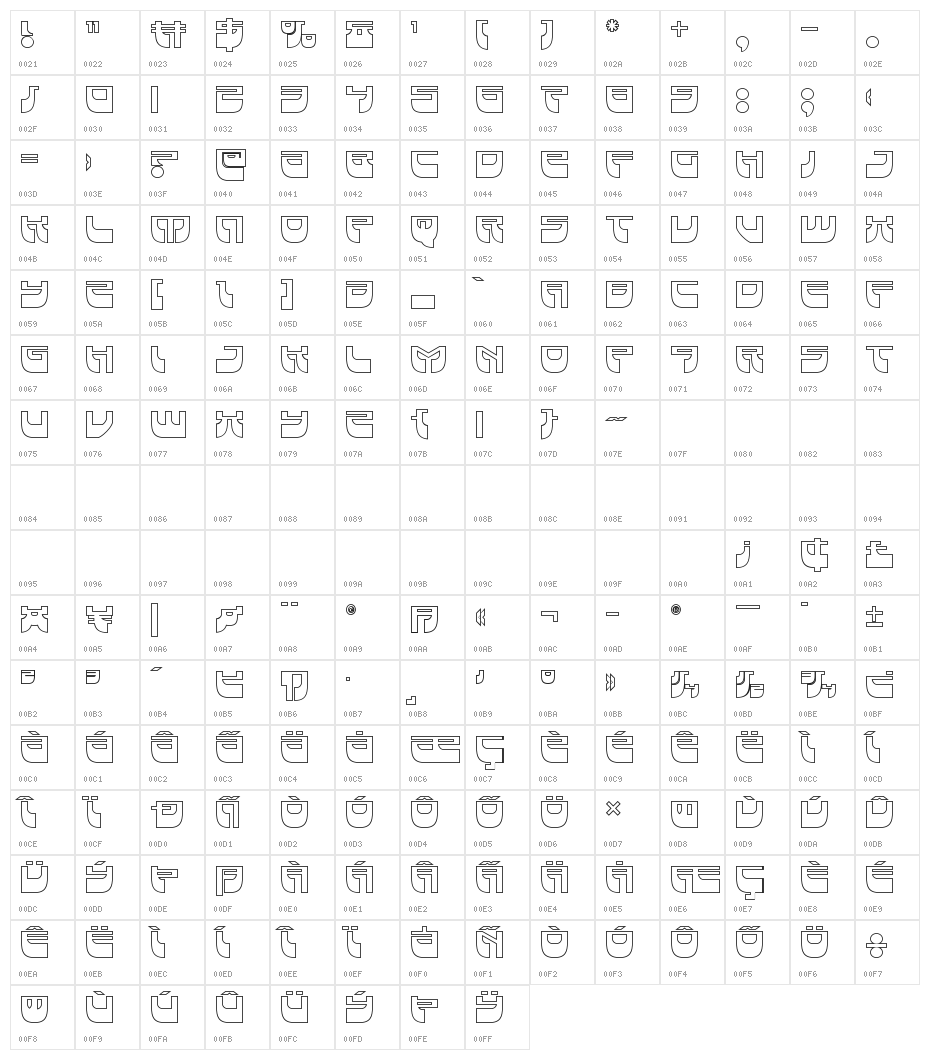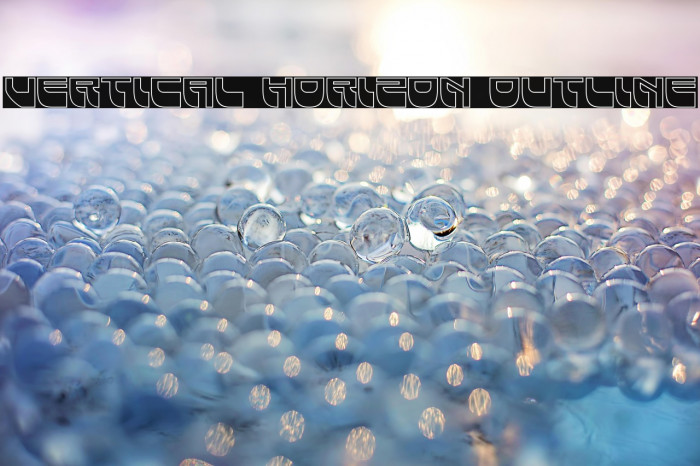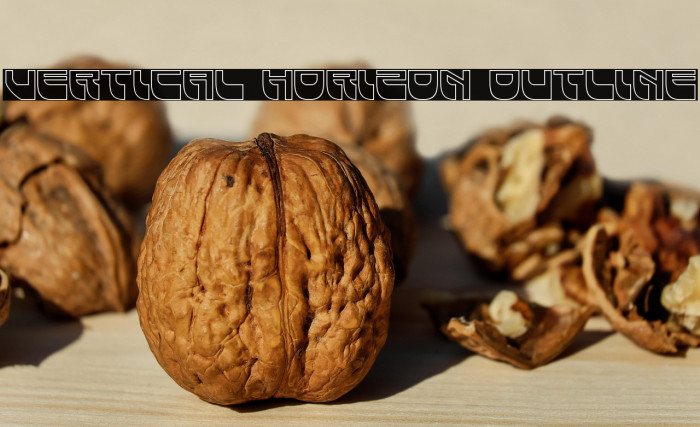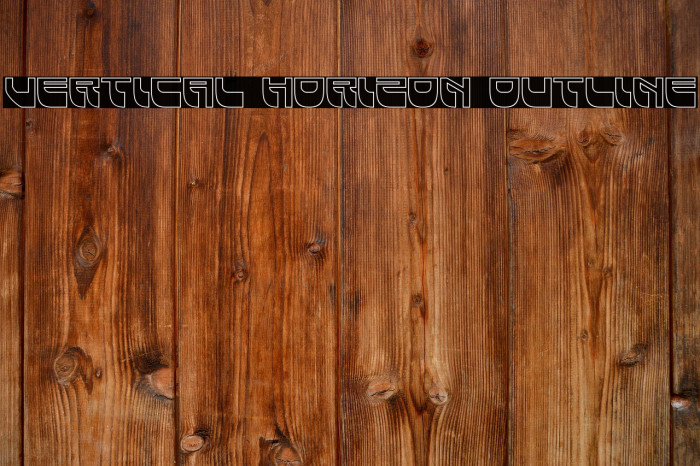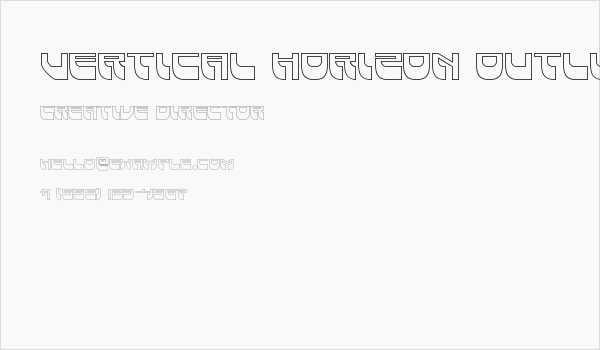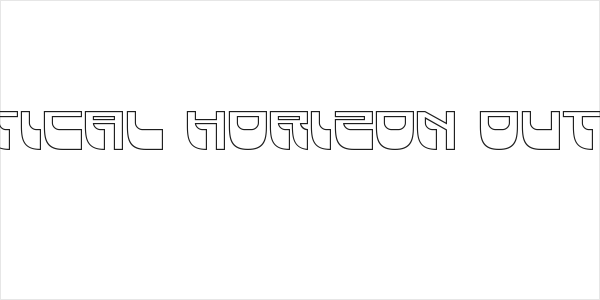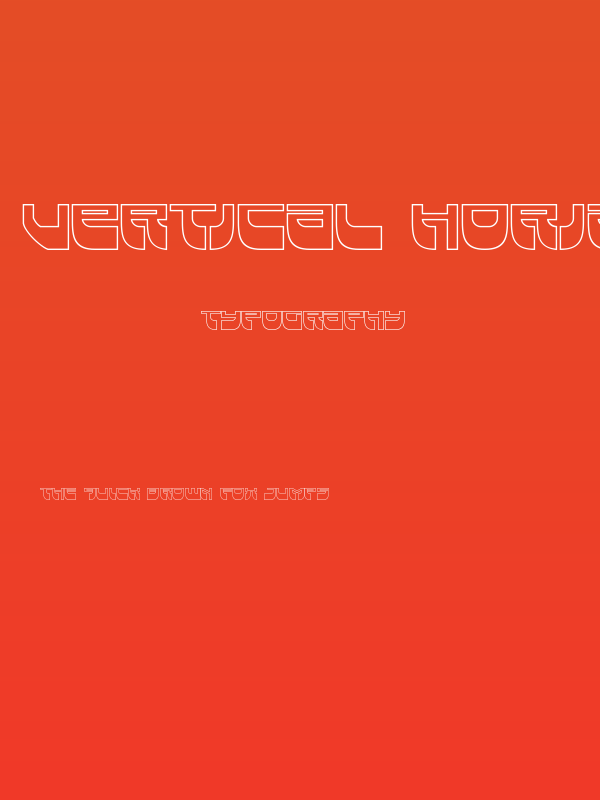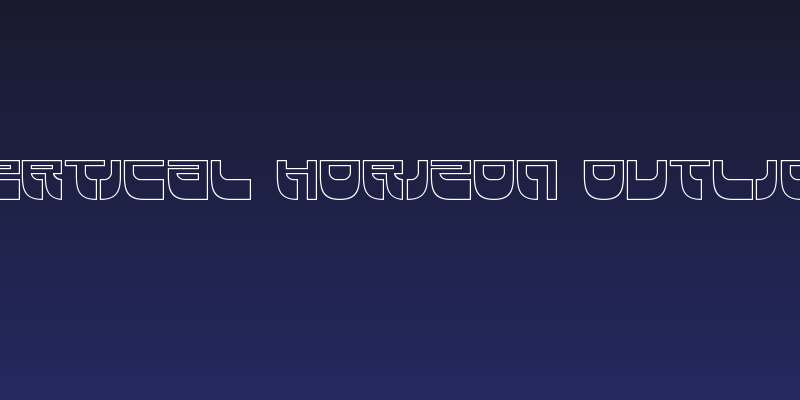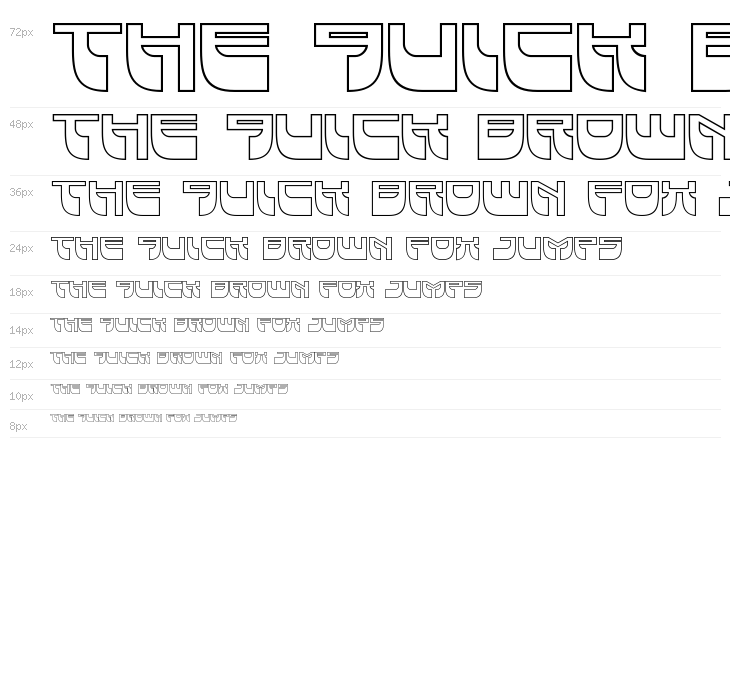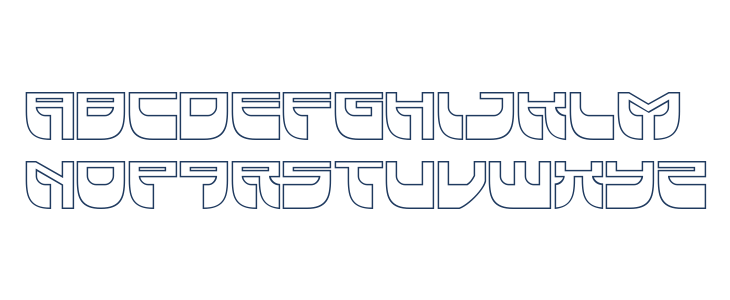
Vertical Horizon Outline Font
Vertical Horizon Outline Description
This font features a unique outline style with a futuristic and geometric design. Each character is crafted with precision, showcasing sharp angles and clean lines that create a sense of modernity and innovation. The uppercase and lowercase letters maintain a consistent aesthetic, with a bold presence that stands out. Numbers and special characters are designed to complement the alphabet, ensuring a cohesive look across all text. The outline nature of the font gives it a lightweight appearance, making it suitable for designs that require a modern and edgy touch.
| Proposed Projects | Ideal for sci-fi themed designs, tech branding, modern posters, and digital artwork. |